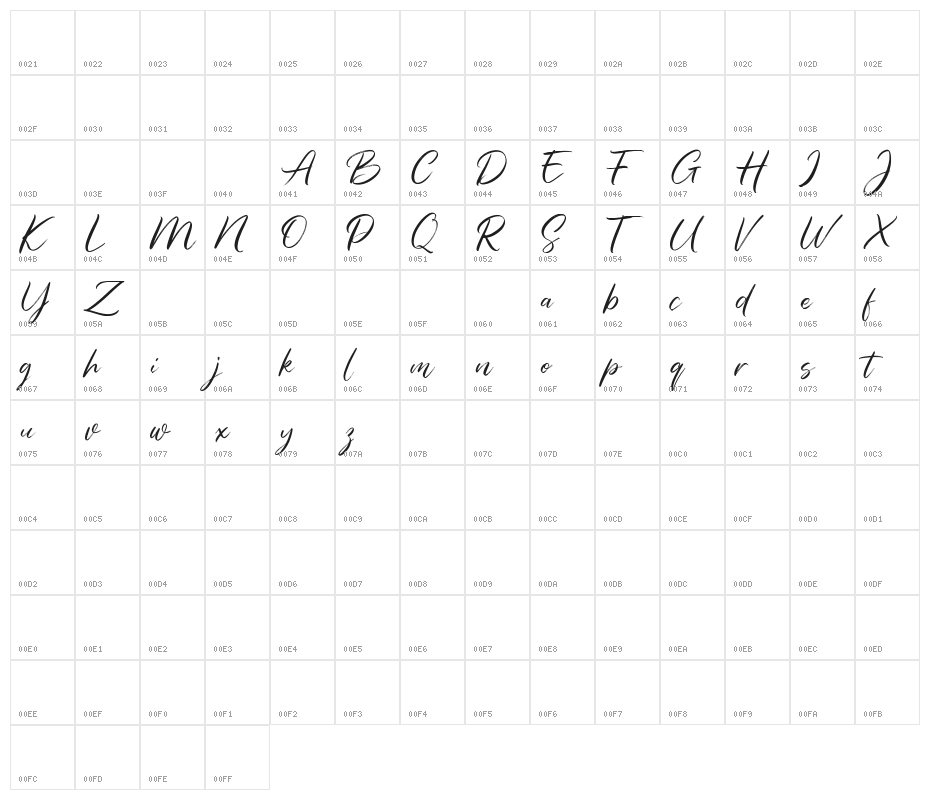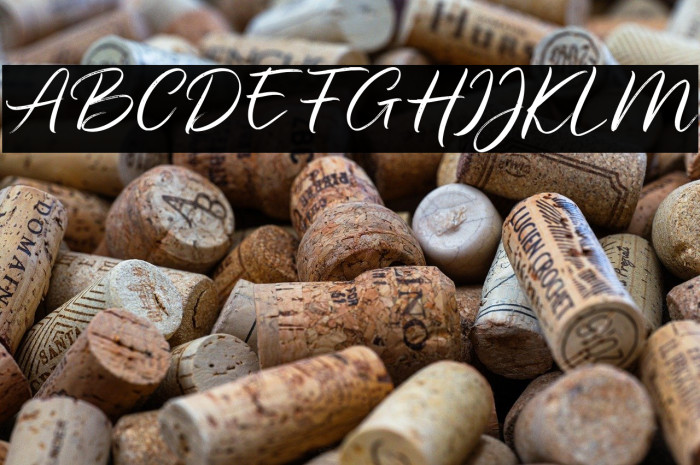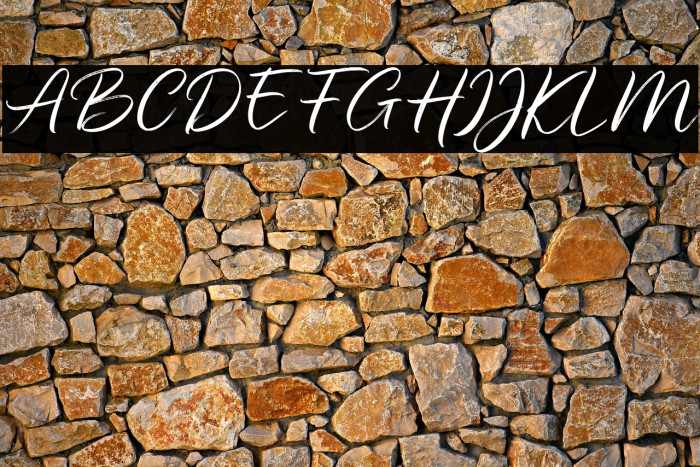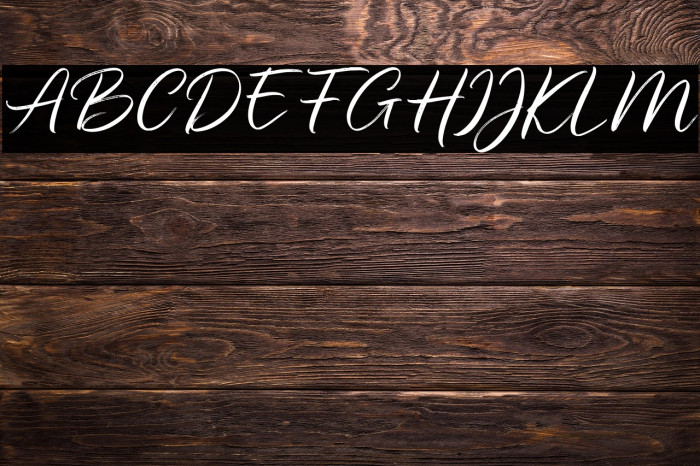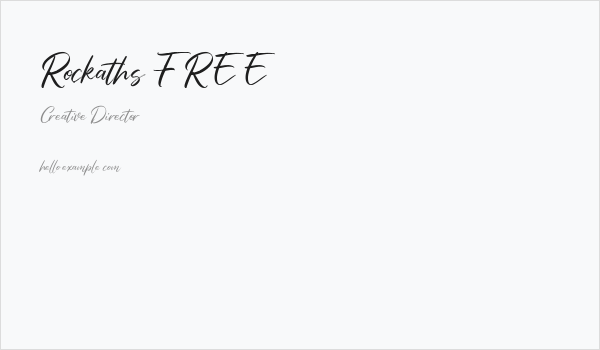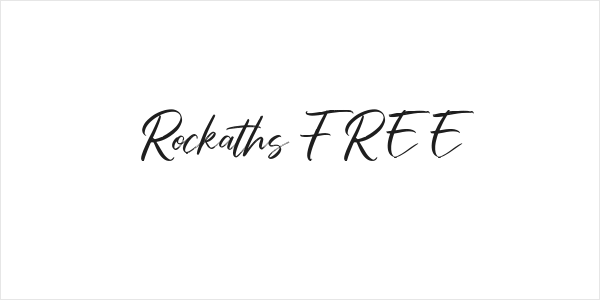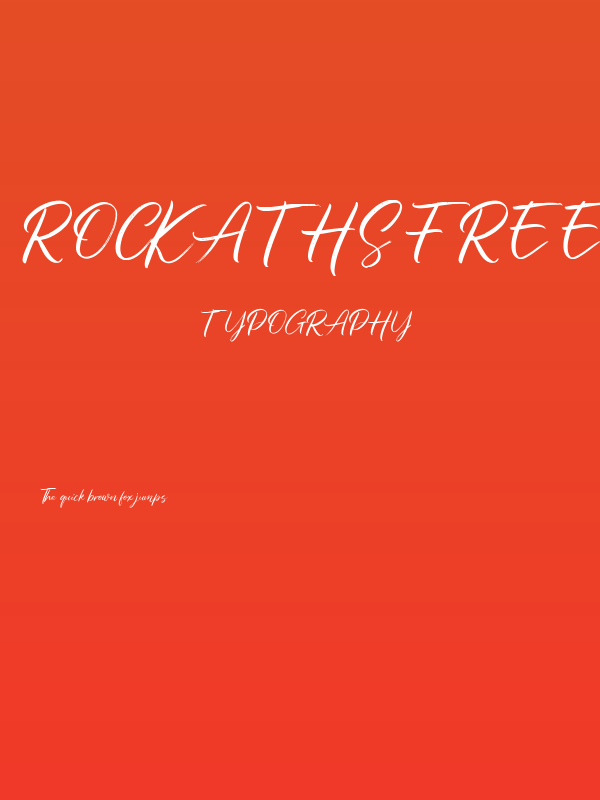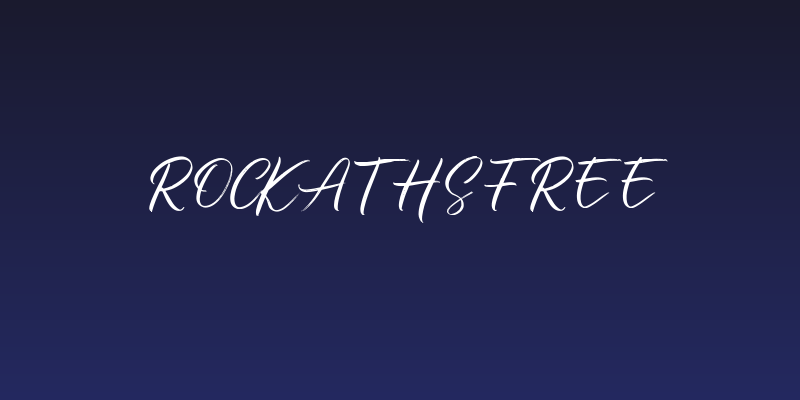
Rockaths FREE Font
Rockaths FREE Description
This font exudes a dynamic and expressive style, characterized by its fluid, cursive script. The uppercase letters are elegantly elongated with a slight slant, giving a sense of movement and grace. The lowercase letters maintain a consistent flow, with some characters featuring distinctive loops and swashes that add to its artistic flair. The strokes vary in thickness, providing a medium contrast that enhances its handwritten appearance. This font is ideal for projects that require a personal touch, such as invitations, greeting cards, or branding materials that aim to convey elegance and creativity.
| Proposed Projects | Ideal for invitations, greeting cards, branding, and creative projects. |